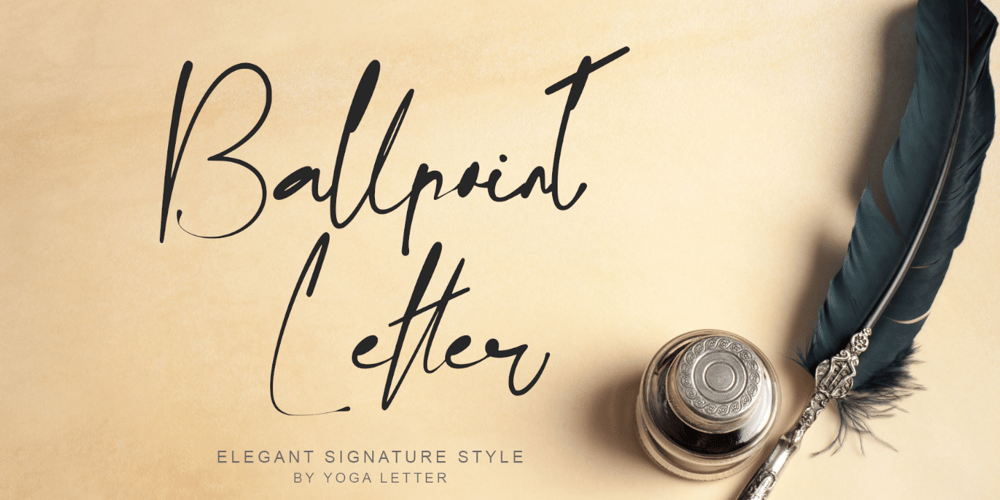
Ballpoint Letter Font Family was designed by Isroni Yoga Prasetya and published by Yoga Letter. Ballpoint Letter contains 1 styles and family package options. “Ballpoint Letter” is an elegant and premium signature font. This font is equipped with uppercase, lowercase, numerals, punctuation, ligatures, and multilingual support. Very suitable for business branding, stickers, book titles, film titles, logos, banners, certificates, wedding invitations, Christmas, Valentine’s, spring, summer, Easter, and others.